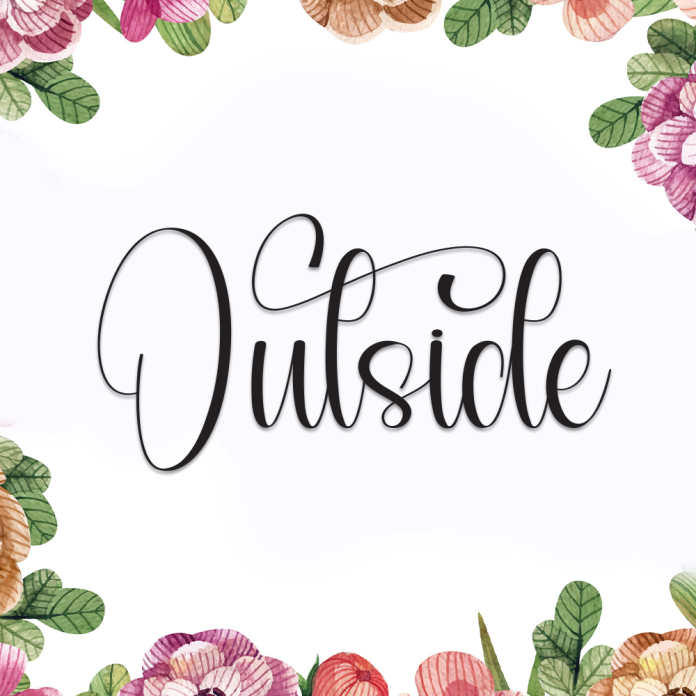
Outside is a casual and organic handwriting font that brings the feeling of freedom, nature, and simplicity into your designs. With smooth strokes and a relaxed flow, it captures the essence of handwritten notes and outdoor adventures.
Perfect for nature-themed branding, travel journals, quotes, packaging, and personal blogs, Outside adds a natural and approachable touch to any creative work.
Handwritten, natural-style lettering
Light and free-flowing appearance
Great for eco-friendly or outdoor themes
Supports multiple languages